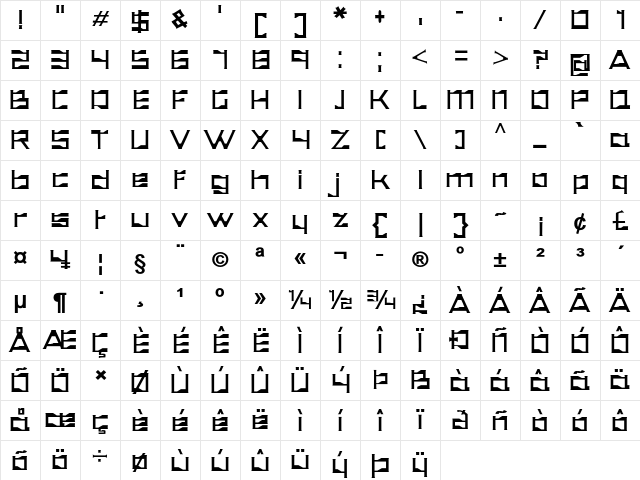
Executris Bold
Executris Family
Executris Bold
Design Context for Executris
Executris is a composed and adaptable typeface that performs quietly and consistently across a wide range of design contexts. Its bold stroke weight gives it real presence on the page.